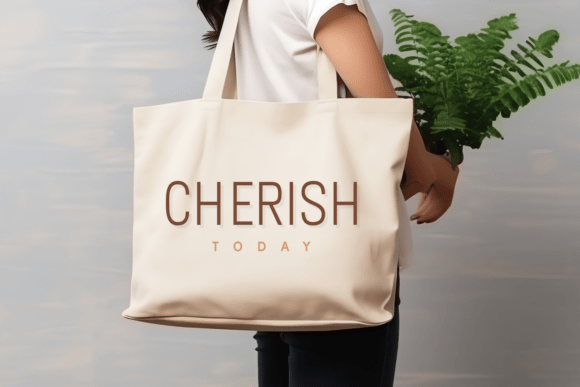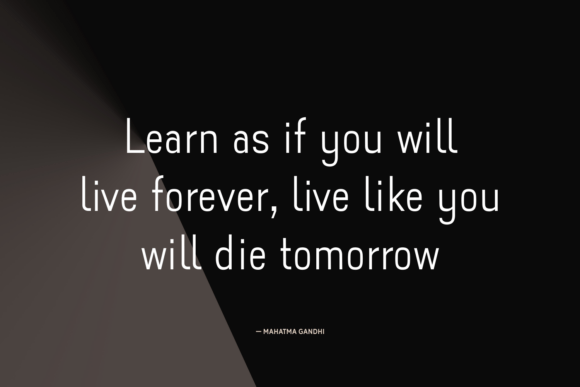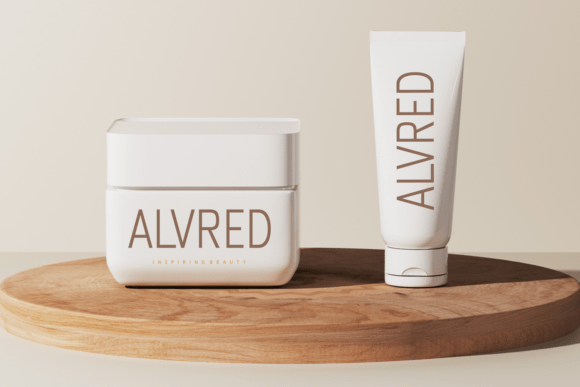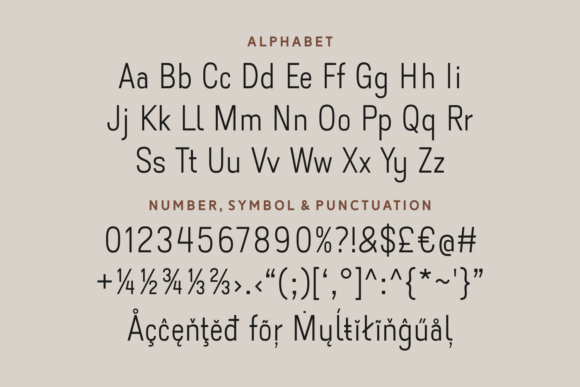
Introducing Fall Freely Font: Elevate Your Designs with a Modern, Minimal Sans Serif
In the world of typography, a font can make all the difference in the success of a design project. For designers and crafters looking for a clean, modern, and sophisticated look, Fall Freely Font is an excellent choice. This article will dive into the features and benefits of Fall Freely, a confident and contemporary sans serif font that can elevate your editorial layouts, product packaging, and fashion-forward branding.
Clean, Minimal, and Modern: The Characteristics of Fall Freely Font
Fall Freely Font boasts a narrow structure and subtle curves, giving it a poised and refined look. Its clean and minimal design makes it perfect for designers who want to create a sophisticated and modern aesthetic. The font’s confident and contemporary edge ensures that your designs stand out from the crowd, while its humanist touch adds a touch of warmth and approachability.
Key Features of Fall Freely Font
- Clean and Minimal Design: Fall Freely Font features a clean and minimal design that makes it perfect for editorial layouts, product packaging, and fashion-forward branding.
- Narrow Structure: The font’s narrow structure gives it a poised and refined look, making it ideal for designs where space is limited.
- Subtle Curves: The subtle curves in Fall Freely Font add a touch of warmth and sophistication to your designs.
- Modern and Humanist Touch: The font’s modern and humanist touch makes it perfect for designers who want to create a contemporary and approachable look.
Use Cases for Fall Freely Font
Fall Freely Font is a versatile font that can be used in a variety of design projects. Here are some use cases where Fall Freely Font excels:
- Editorial Layouts: The font’s clean and minimal design makes it perfect for editorial layouts, such as magazines, newspapers, and blogs.
- Product Packaging: Fall Freely Font’s narrow structure and subtle curves make it ideal for product packaging, where space is often limited.
- Fashion-Forward Branding: The font’s modern and sophisticated look makes it perfect for fashion-forward branding, such as fashion magazines, clothing labels, and accessories.
Benefits of Using Fall Freely Font
Using Fall Freely Font in your design projects offers several benefits, including:
- Improved Readability: The font’s clean and minimal design makes it easy to read, even in small sizes.
- Increased Sophistication: Fall Freely Font’s modern and humanist touch adds a touch of sophistication to your designs.
- Versatility: The font’s versatility makes it perfect for a variety of design projects, from editorial layouts to product packaging.
Fall Freely Font is a modern, minimal sans serif font that offers a clean and sophisticated look. Its narrow structure, subtle curves, and humanist touch make it perfect for editorial layouts, product packaging, and fashion-forward branding. With its improved readability, increased sophistication, and versatility, Fall Freely Font is an excellent choice for designers and crafters looking to elevate their designs.